Arial Black Font Pairing. Such as arial black, arial narrow, arial rounded, arial medium, arial light, etc. Other good fonts for bold include harmonia sans, helvetica neue, georgia, arial, new grotesk round, futura pt,.
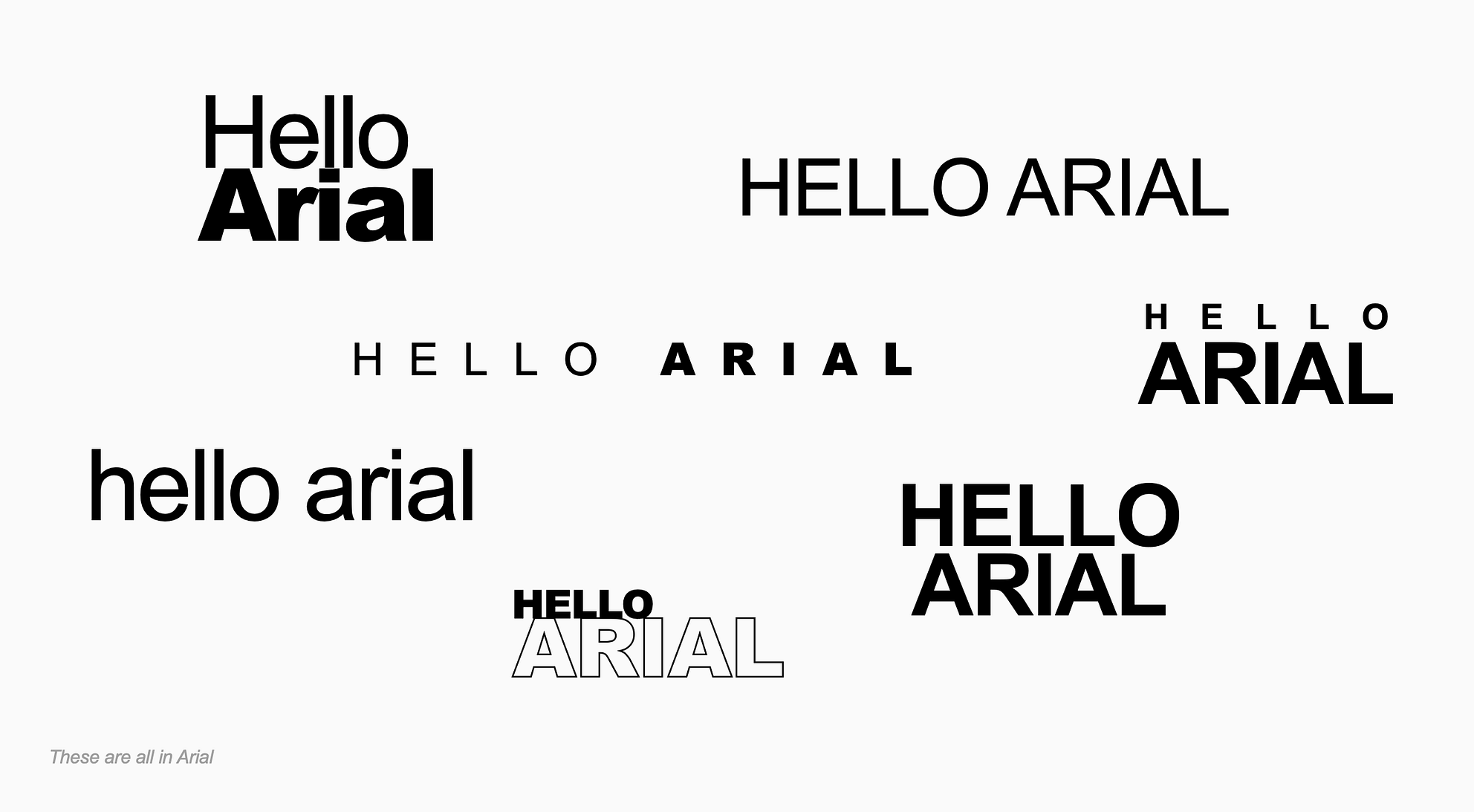
It Goes Well With Georgia, Lucida Grande, Oswald, Times New Roman, Bourgeois, Helvetica Neue, Verdana, Segoe Ui, Bebas Neue And Theinhardt.
Rgb(128, 132, 141) additional color(s):. However, there are some differences. It was released in 1982 by monotype and although commonly thought of as a helvetica ripoff, arial was primarily influenced by monotype grotesque, a typeface released 31 years.
Concord And Contrast Are Good;
This Font Is A Development Of The Widely Used And Versatile Arial Typeface.